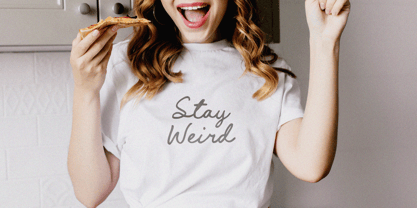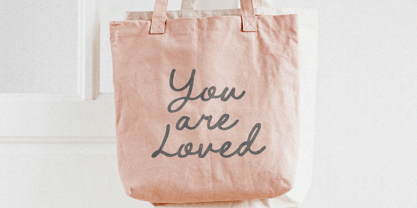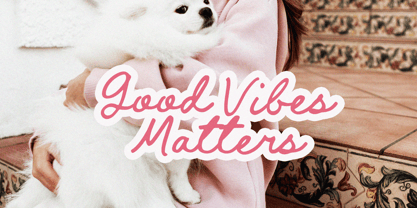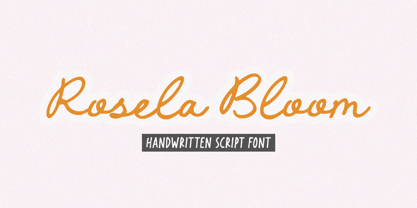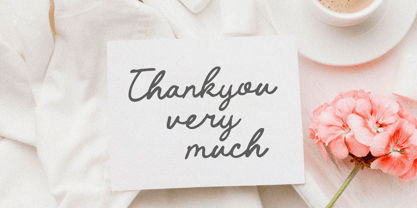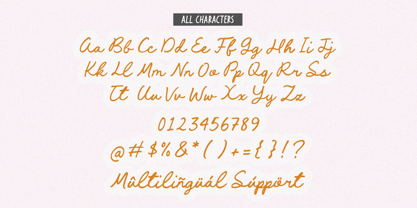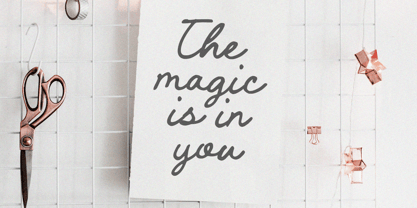
Rosela Bloom
by Timurtype
The Rosela Bloom Font Family was designed by Ibnu Nur Rahman and published by Timurtype. Rosela Bloom contains 1 styles. More about this family
Introduced by Timurtype Studio! Rosela Bloom is a Handwritten Script Font This font is a elegant handwritten script font characterized by smooth, flowing curves and a well-balanced, stylish appearance. It carries a natural, feminine feel with decorative swashes and ligatures, making it highly versatile for creative projects. Commonly used for logos, wedding stationery, branding, and editorial designs, this font adds a modern yet graceful touch to any visual composition. Rosela Bloom Font also supports multilingualism Enhance your designs with our original fonts, feel free to comment or provide feedback, Enjoy the fonts 😊 Thank You